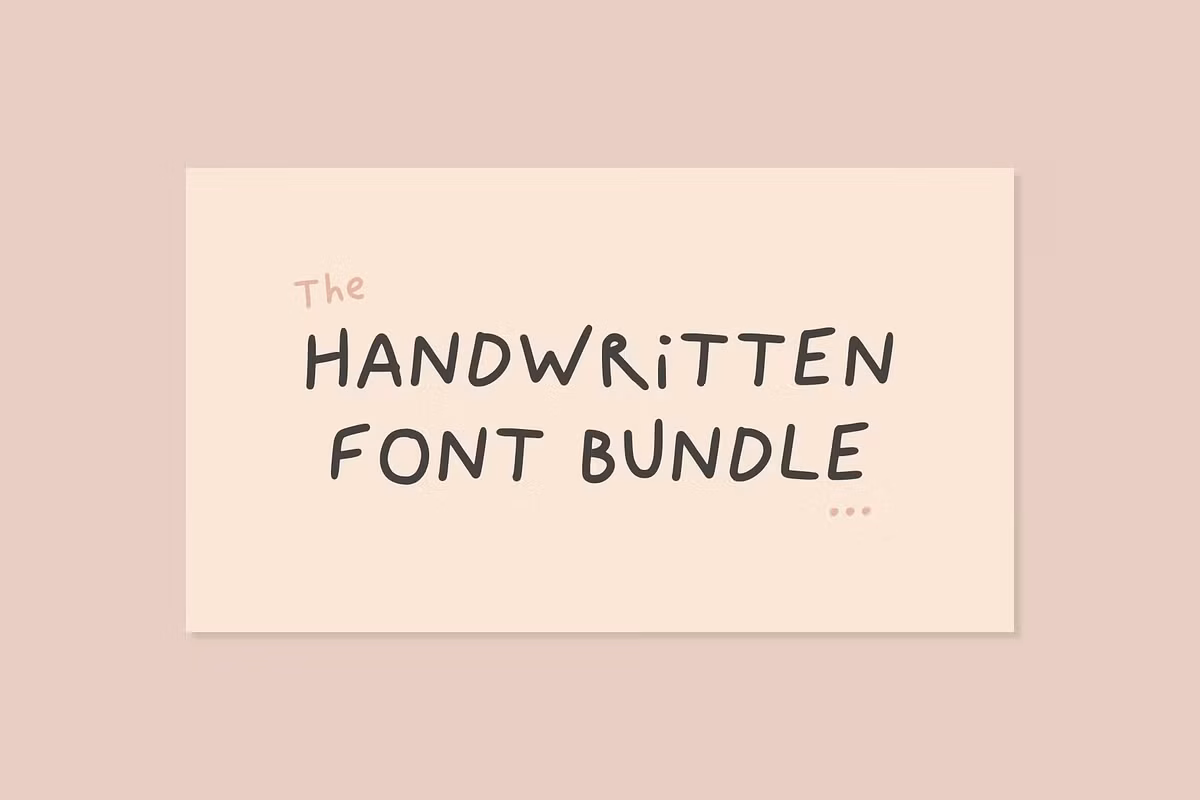
Delightful Handwritten Font Bundle Free Download
Delightful Handwritten Font Bundle Free Download is a charming collection of hand-drawn typefaces designed to bring warmth and personality to your creative projects. Featuring a variety of whimsical, elegant, and playful handwritten styles, this bundle is perfect for wedding invitations, branding, social media graphics, greeting cards, and any project that needs a personal, handcrafted touch.
Whether you’re designing heartfelt invitations, creating an authentic brand identity, or adding a cozy feel to your designs, Delightful Handwritten Font Bundle delivers versatility, charm, and creativity. It’s a must-have for designers who appreciate beautiful, hand-crafted typography.